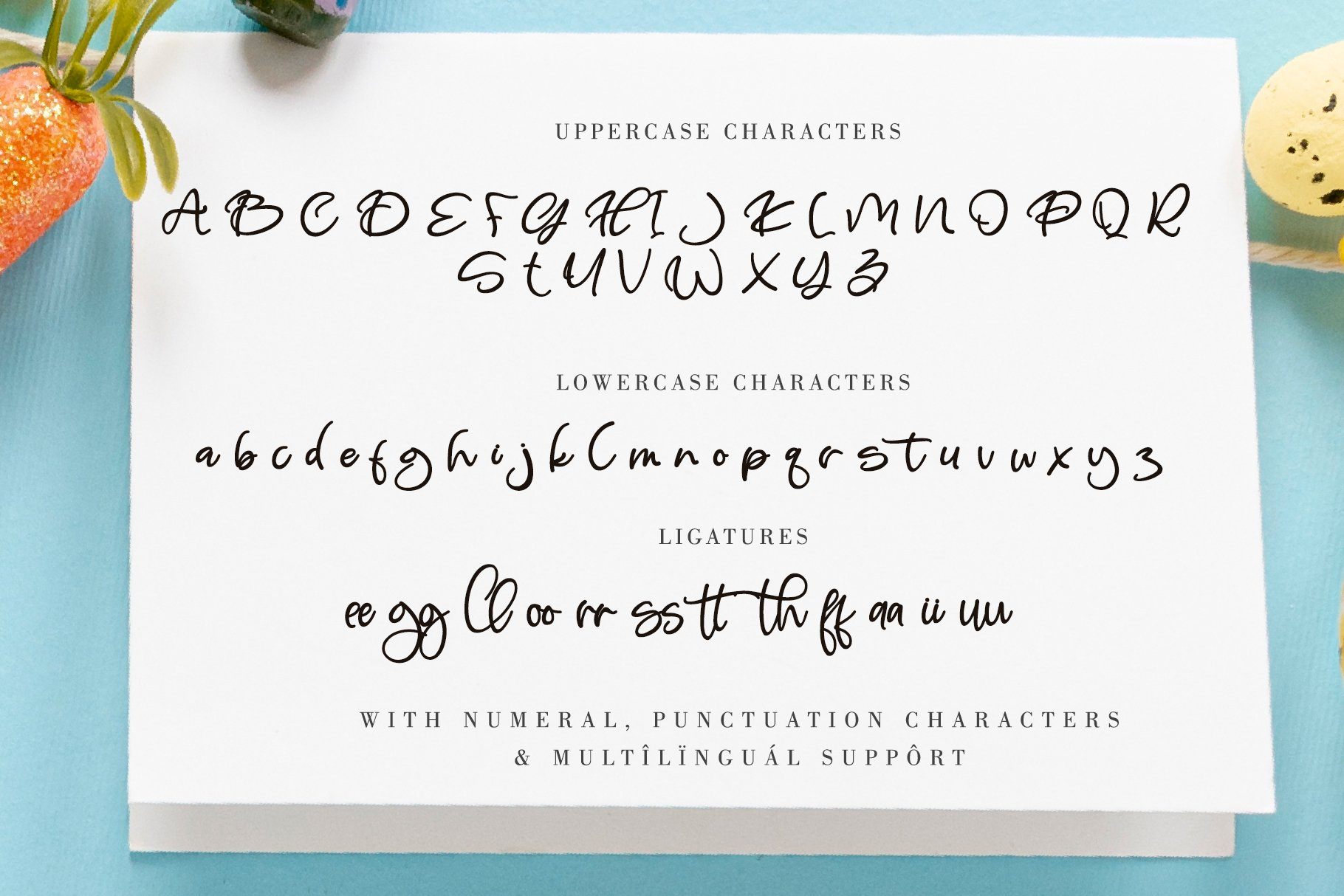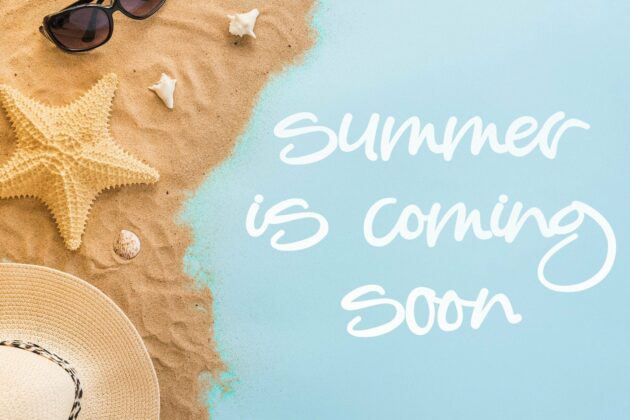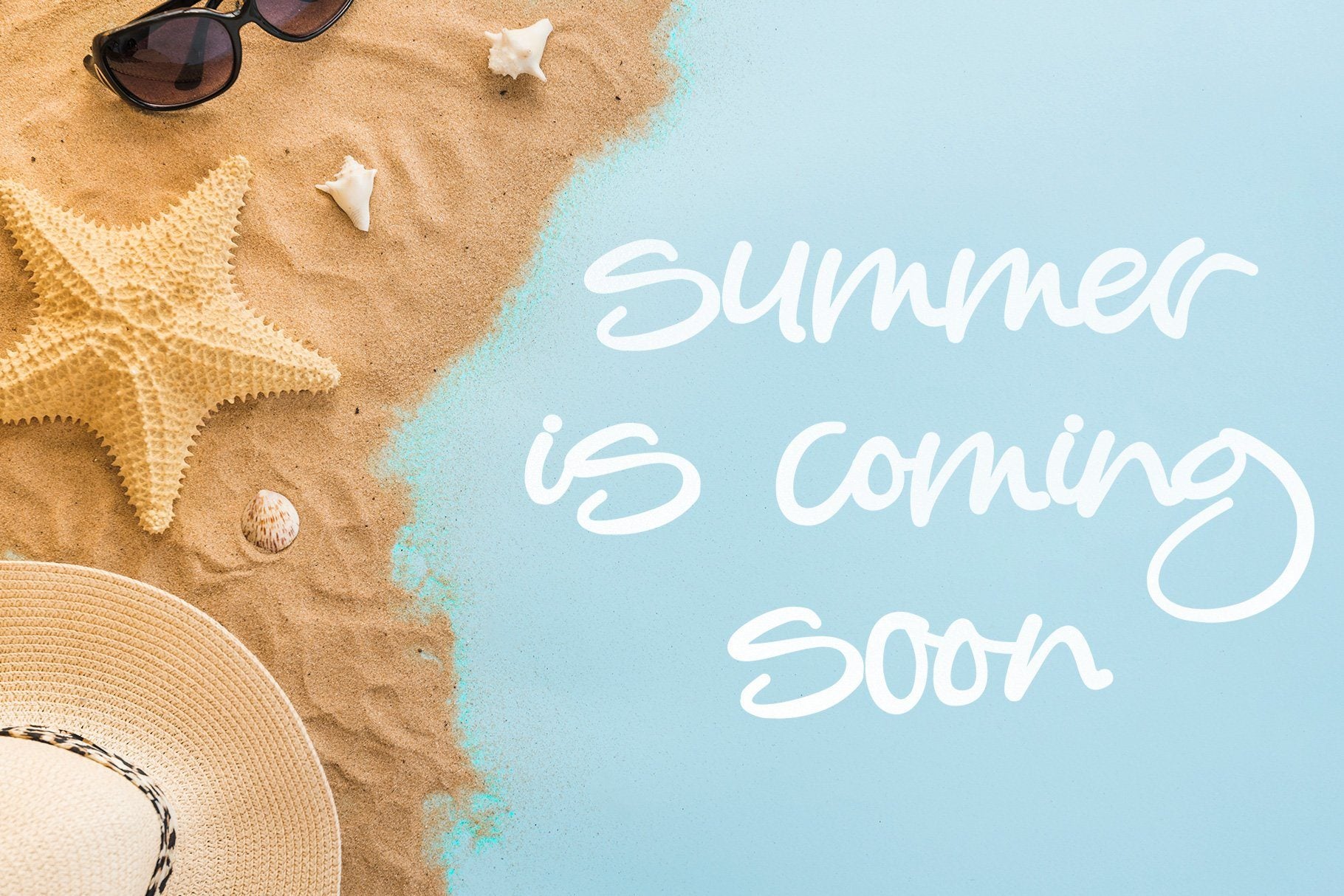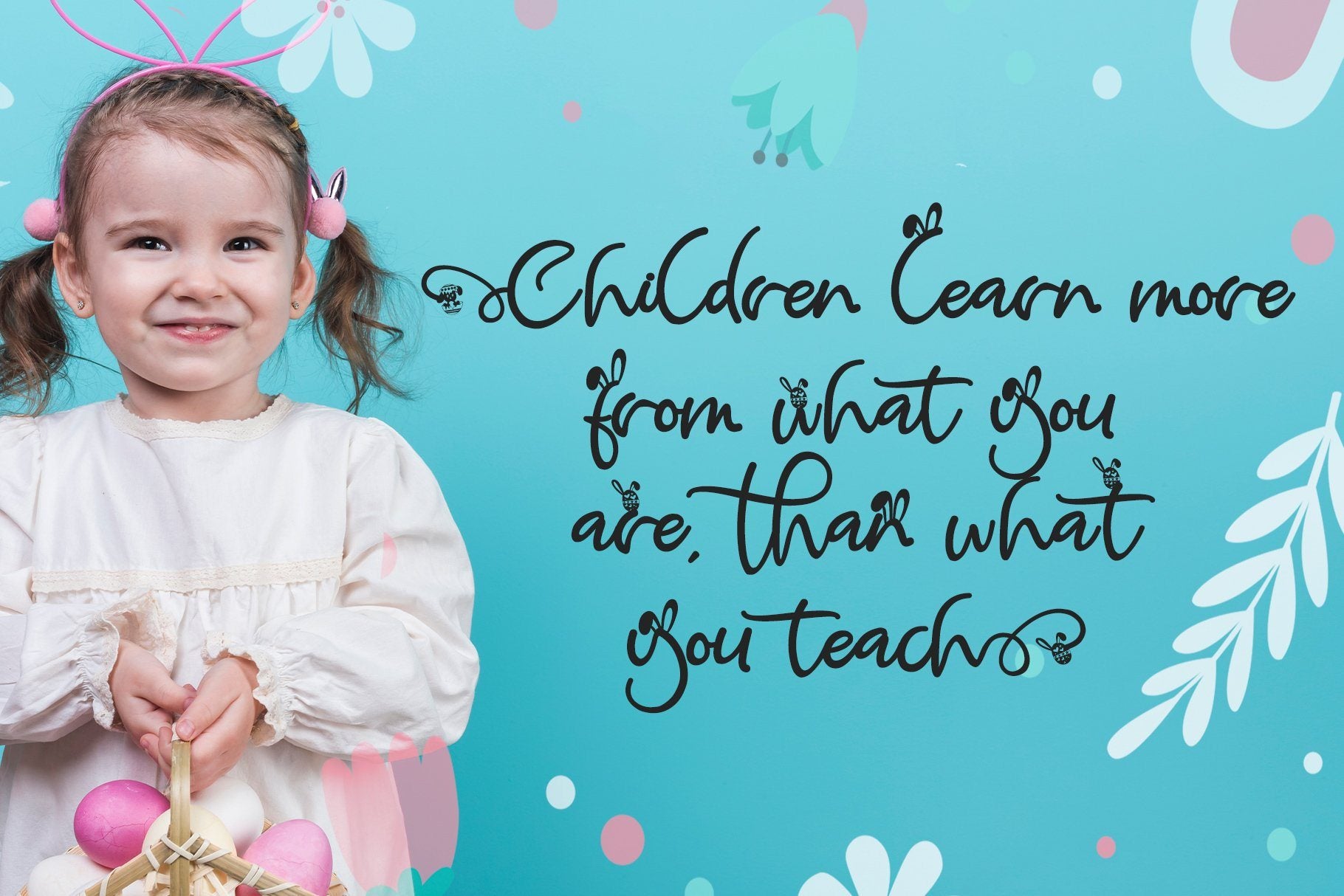
About Heaster
Heaster is a cute and casual handwritten font with an incredibly friendly feel. It features gorgeous swashes and ligatures that make this script incredibly versatile. Whether you’re looking for fonts for Instagram or calligraphy scripts for DIY projects, Heaster will turn any creative idea into a true piece of art! God bless you! To stay up to date for my latest job, follow me and let’s be friends because there will be many promos. Our other products : BEST SELLER MILEADILA BEAUTIFUL KISSES ANGELIN GAMOS HERTINA JENNIE ANTIKA AURORA BLACK PINK SIGNATURE California Street BESTOWENS FAMILY